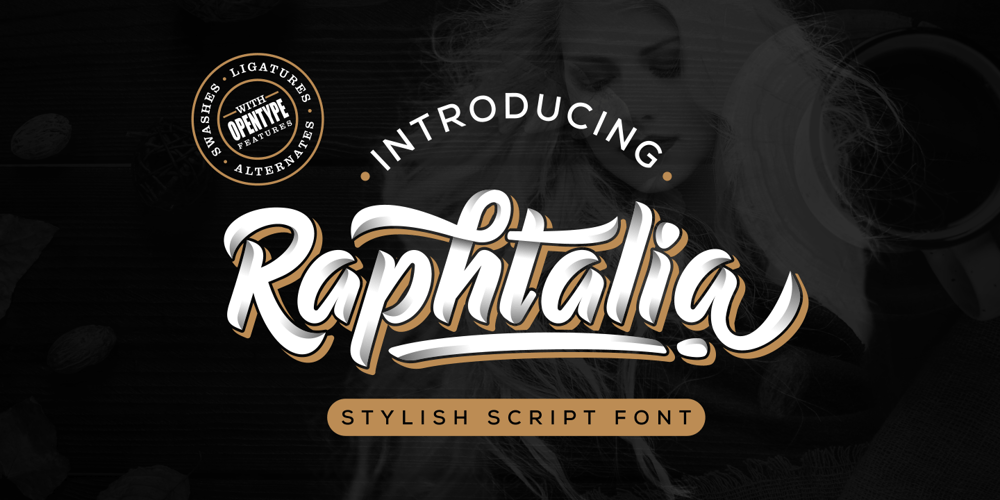
Raphtalia Font Family was designed by Nur Faidin and published by Nurf Designs. Raphtalia contains 1 styles and family package options. Raphtalia is a fun and bold font with a unique vintage appeal! Designed with a distinct retro feel and lovely elements,